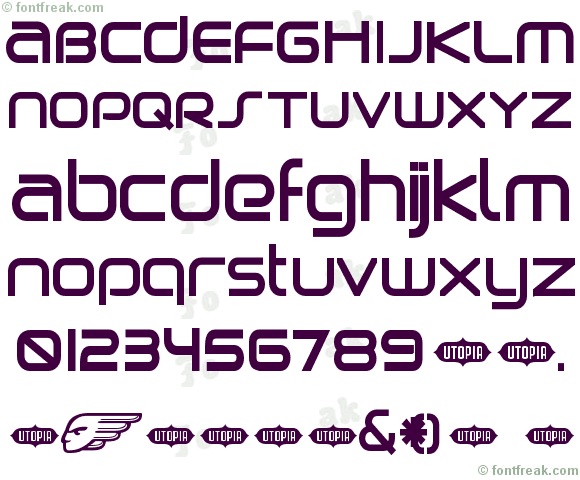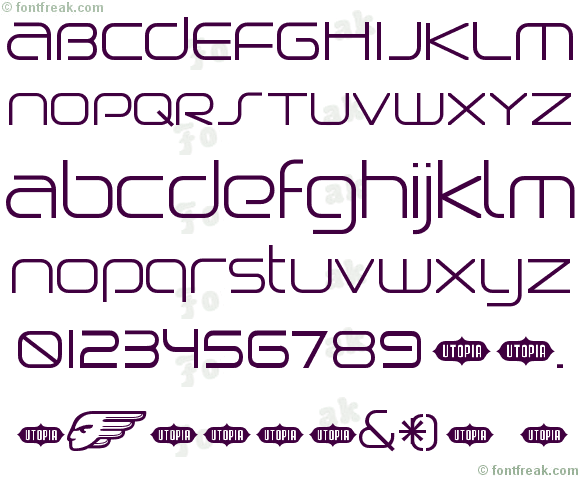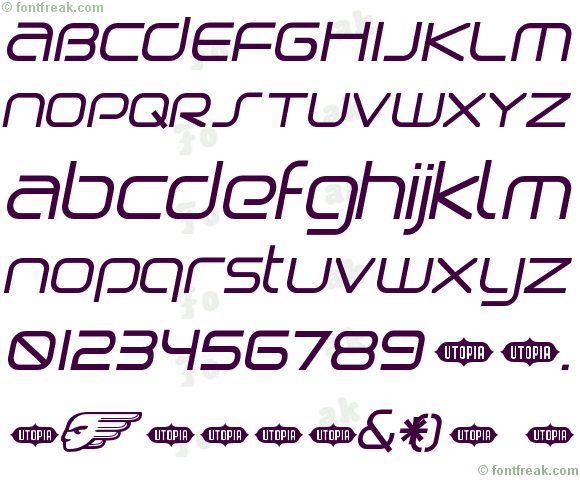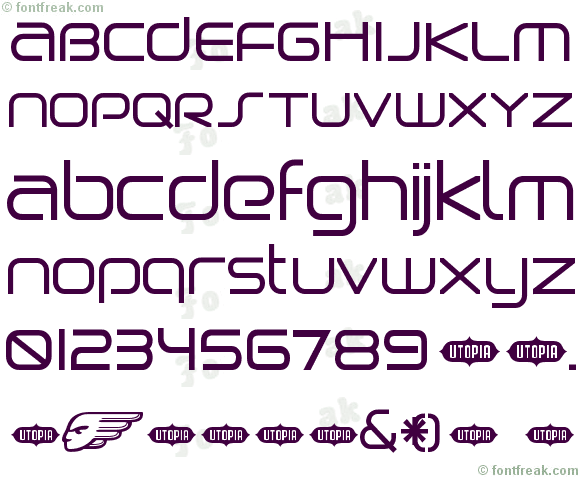
Birdman
Birdman Light
Birdman Oblique
Birdman Bold
About Birdman
Birdman, designed by Dale Harris in 2002, is a striking display font that falls under the category of sans-serif typography. This unique typeface features a light, oblique style with bold characteristics that make it visually appealing and versatile. The strokes exhibit a moderate weight, creating a balanced contrast that enhances readability while maintaining a stylish flair. The generous spacing between the letters adds to its modern aesthetic, making it suitable for a variety of design applications.
With its distinctive appearance, the Birdman font is ideal for several creative use cases. Graphic designers can leverage its boldness for eye-catching movie posters, ensuring that titles stand out and attract attention. Additionally, this font works beautifully for restaurant menus, where a contemporary feel can enhance the dining experience. Wedding invitations can also benefit from Birdman’s unique style, adding a touch of elegance and personality to any special occasion. Content creators looking to make an impact in their social media graphics will find Birdman to be an excellent choice for digital marketing materials due to its modern vibe.
The target audience for the Birdman font includes graphic designers, small business owners, and content creators who seek to elevate their projects with a font that embodies creativity and modernity. The font’s unique blend of lightness and boldness allows it to stand out in a crowded visual landscape, making it a valuable asset in any designer's toolkit. For those interested in incorporating this distinctive typeface into their work, the Birdman font free download offers an accessible opportunity to enhance their designs with a touch of contemporary elegance.